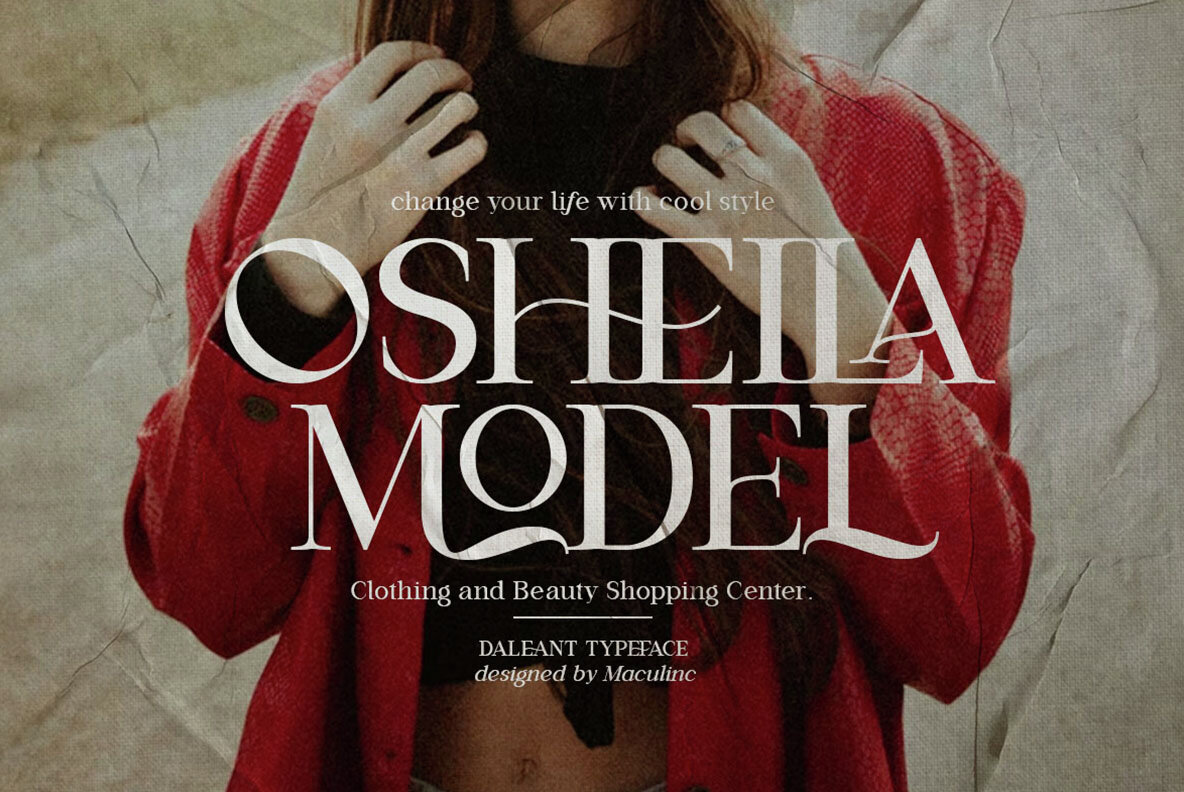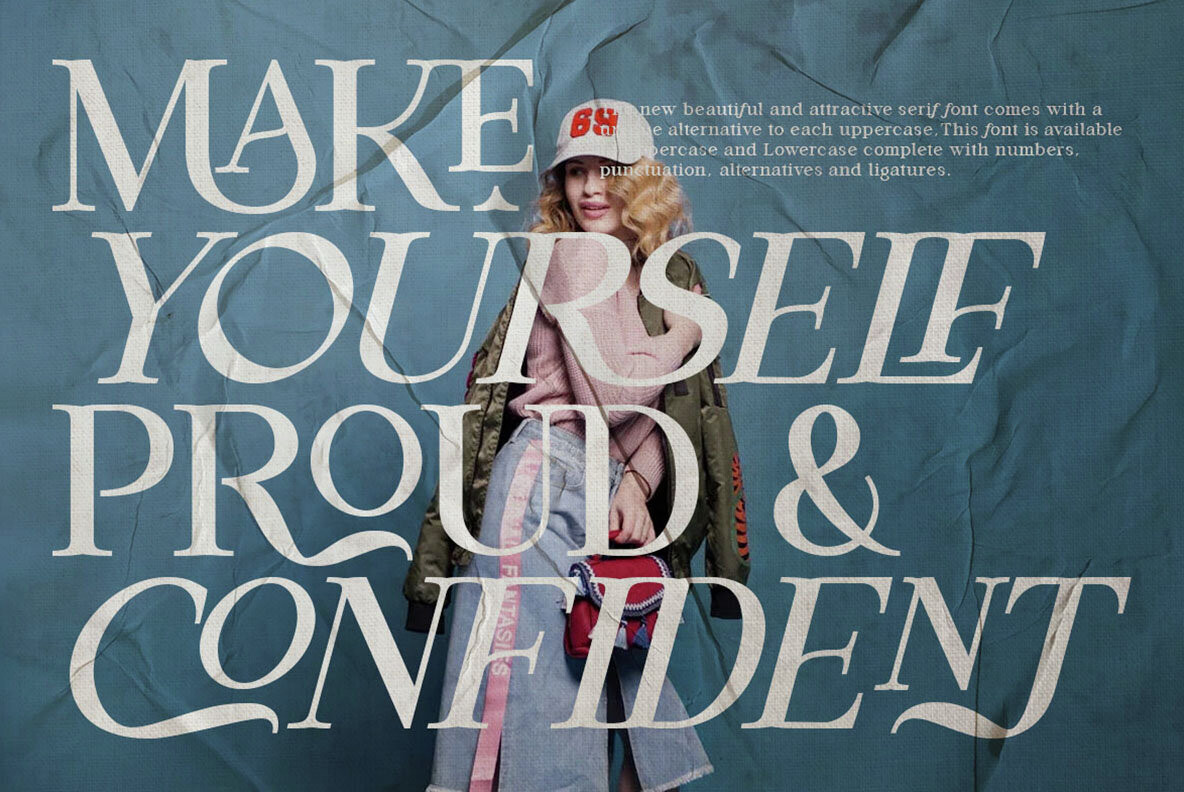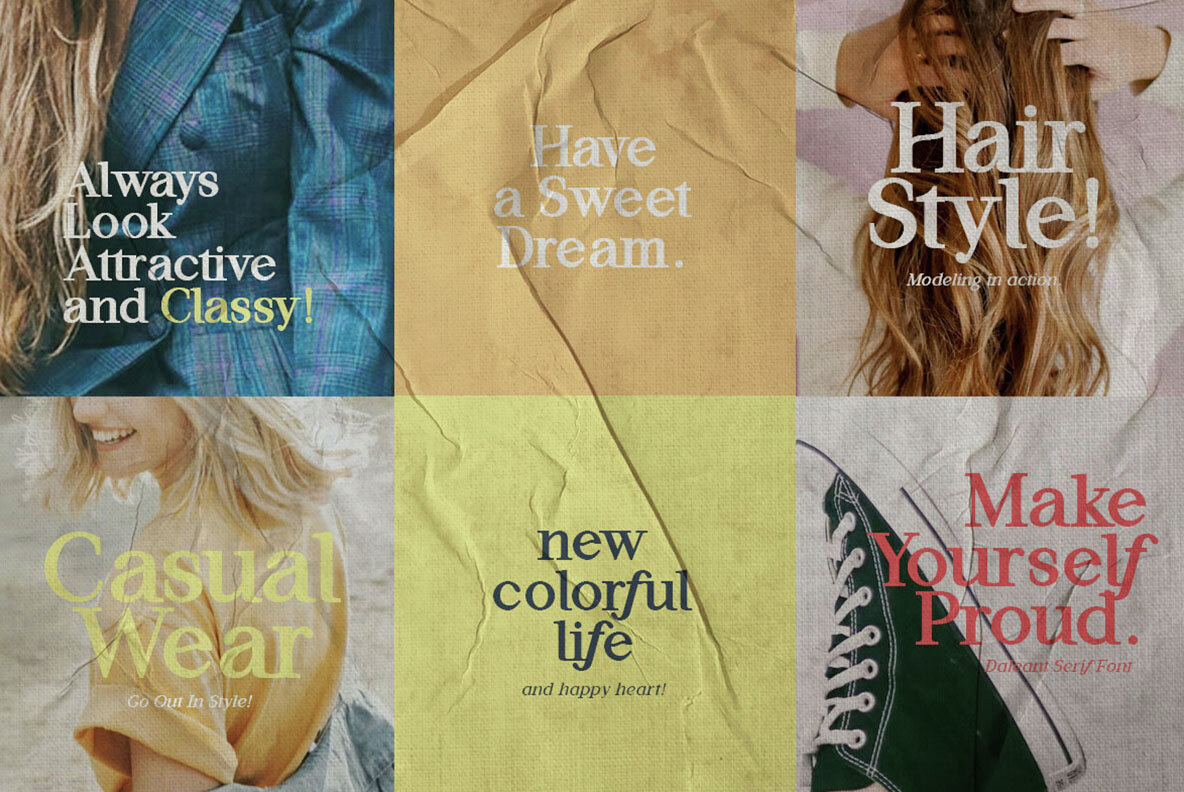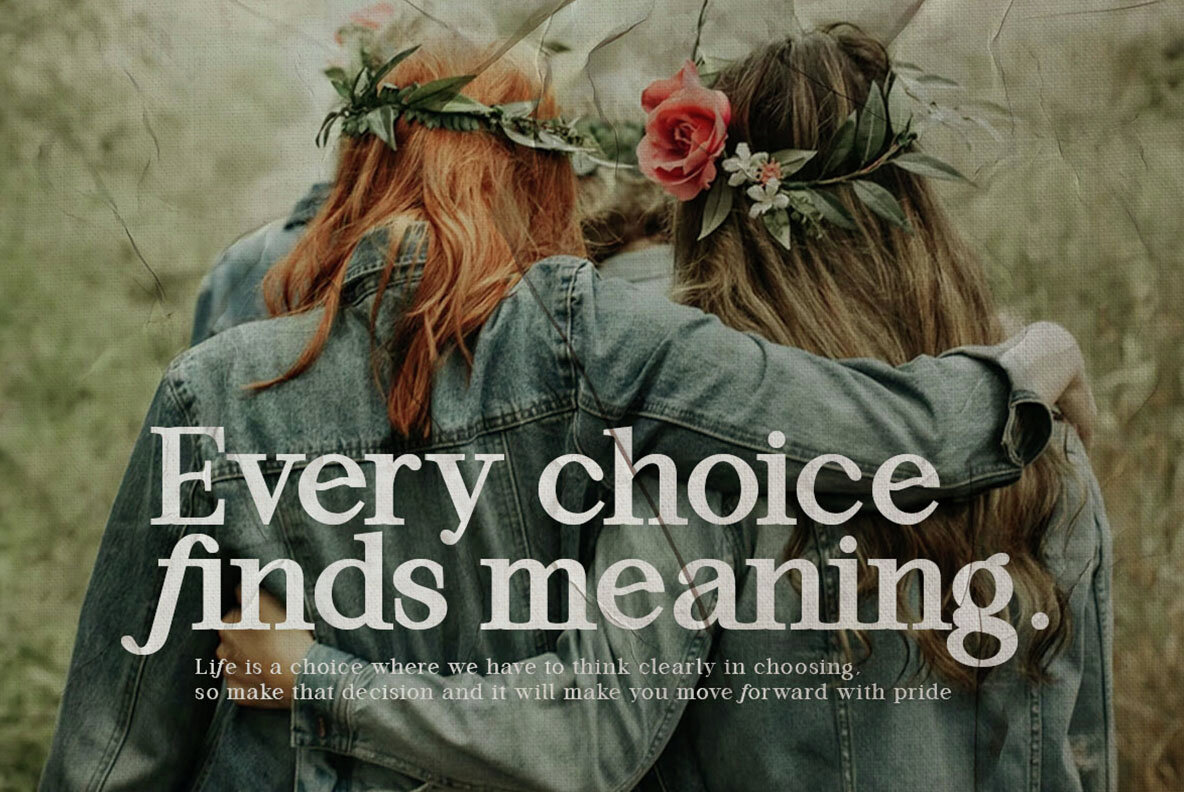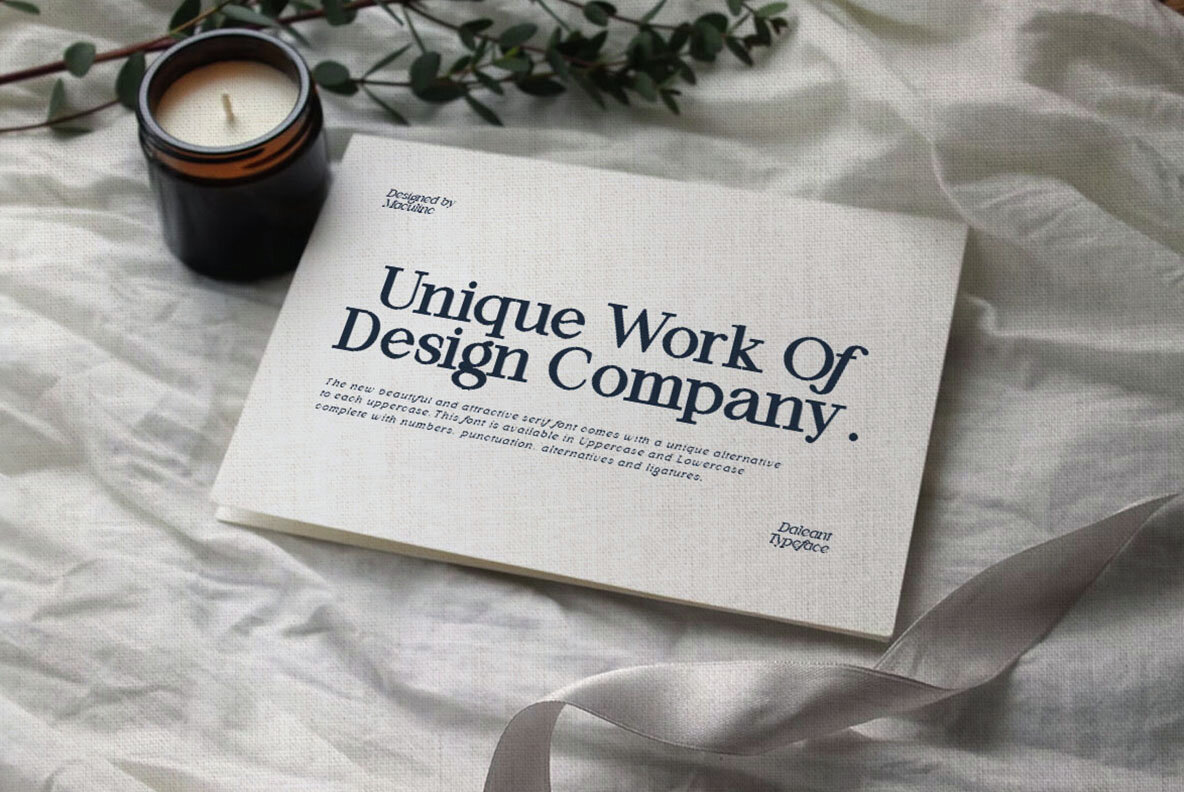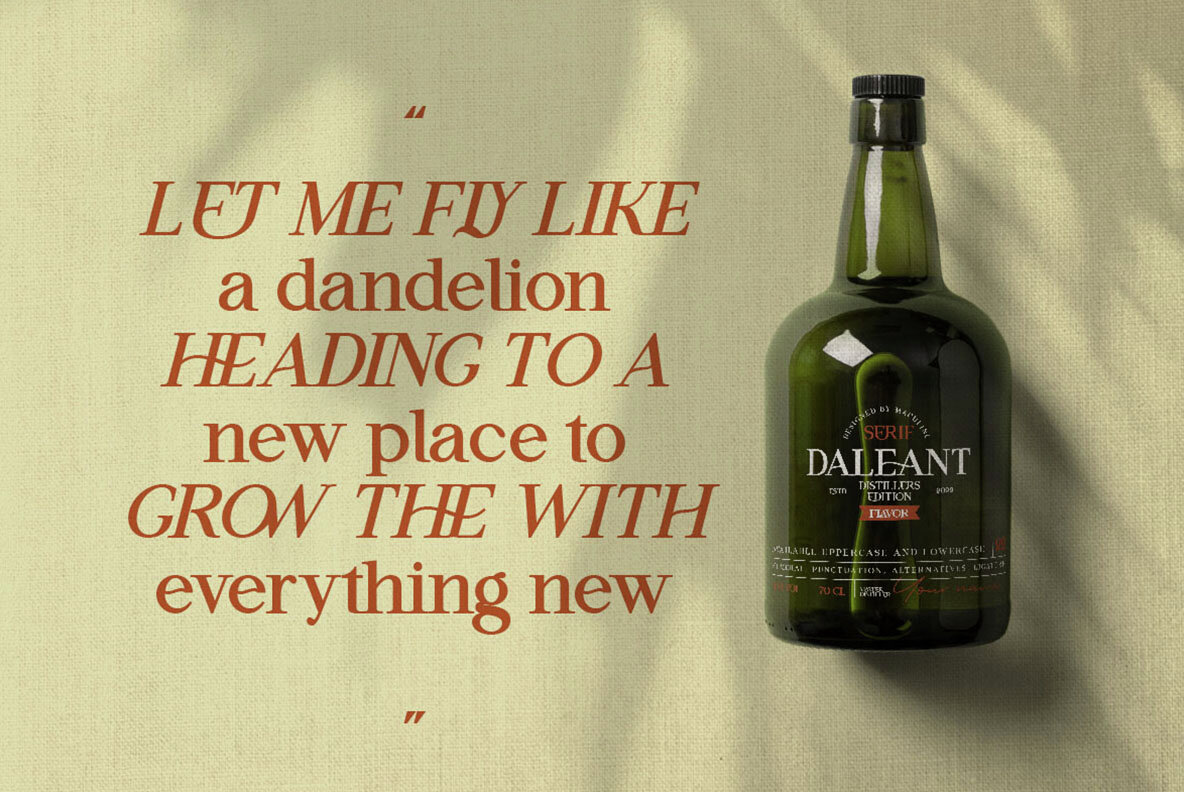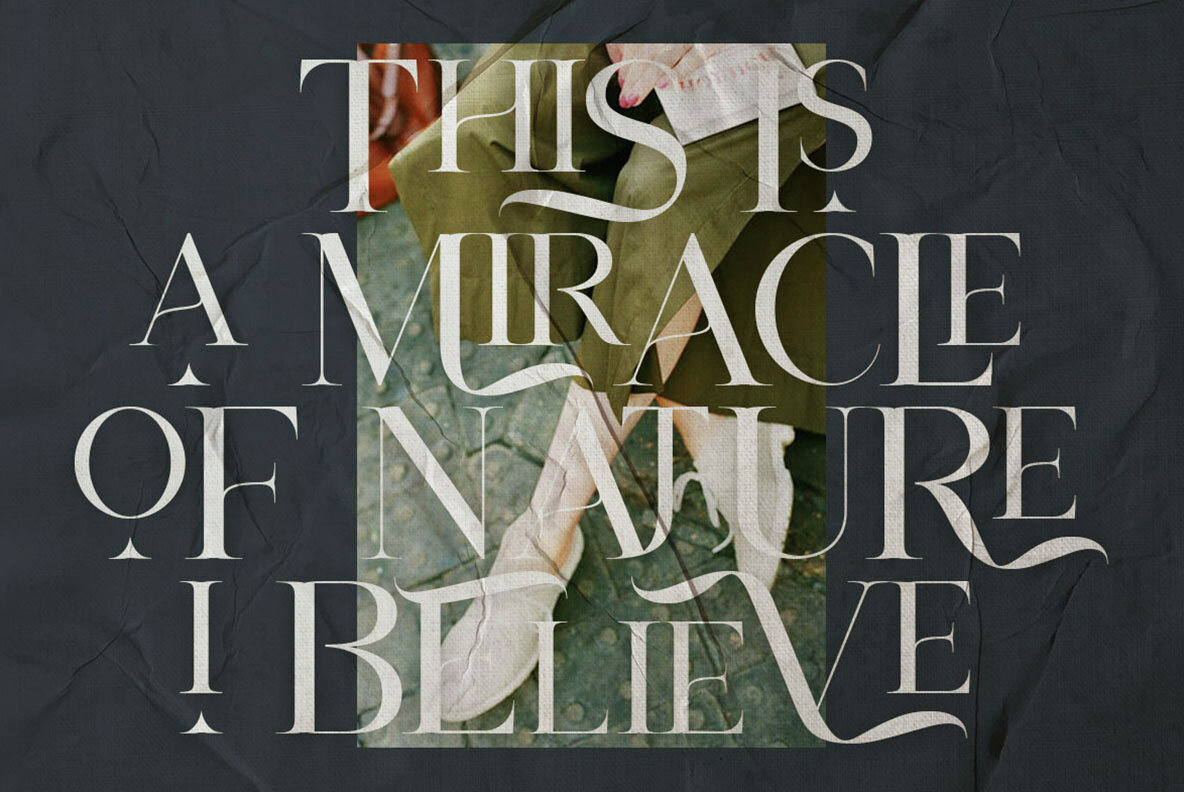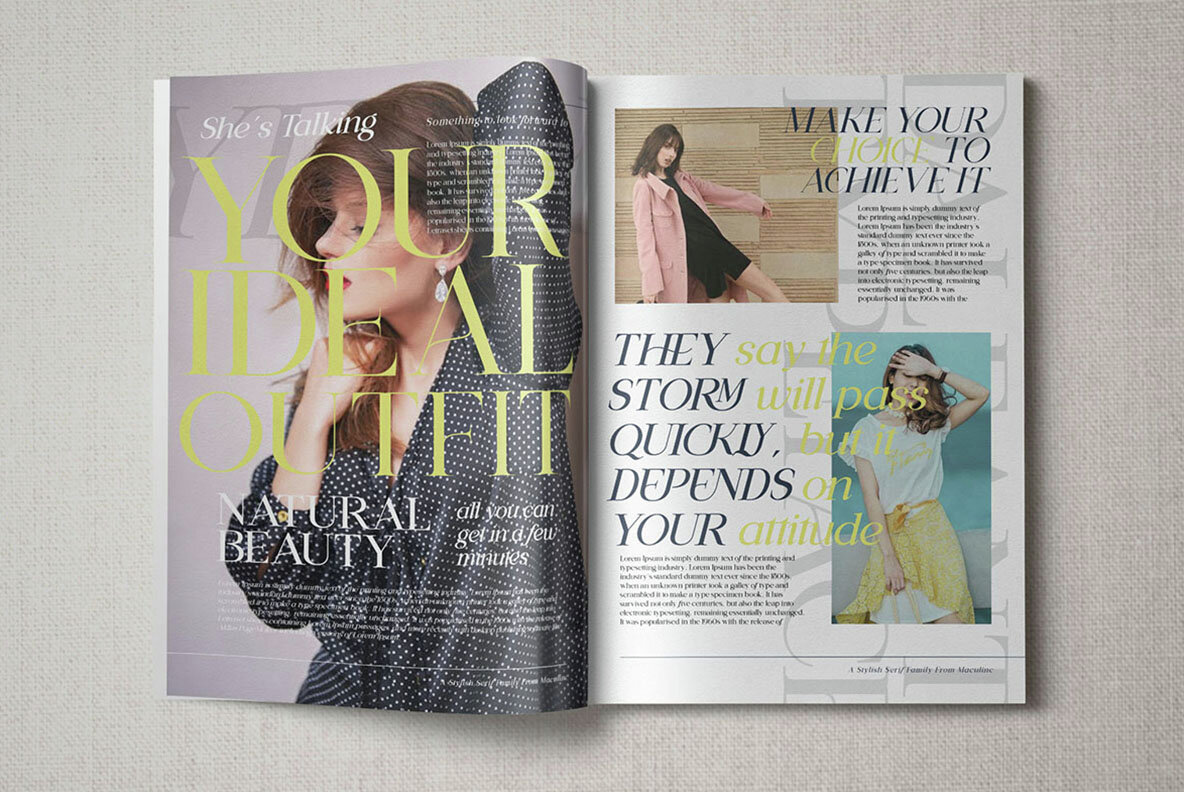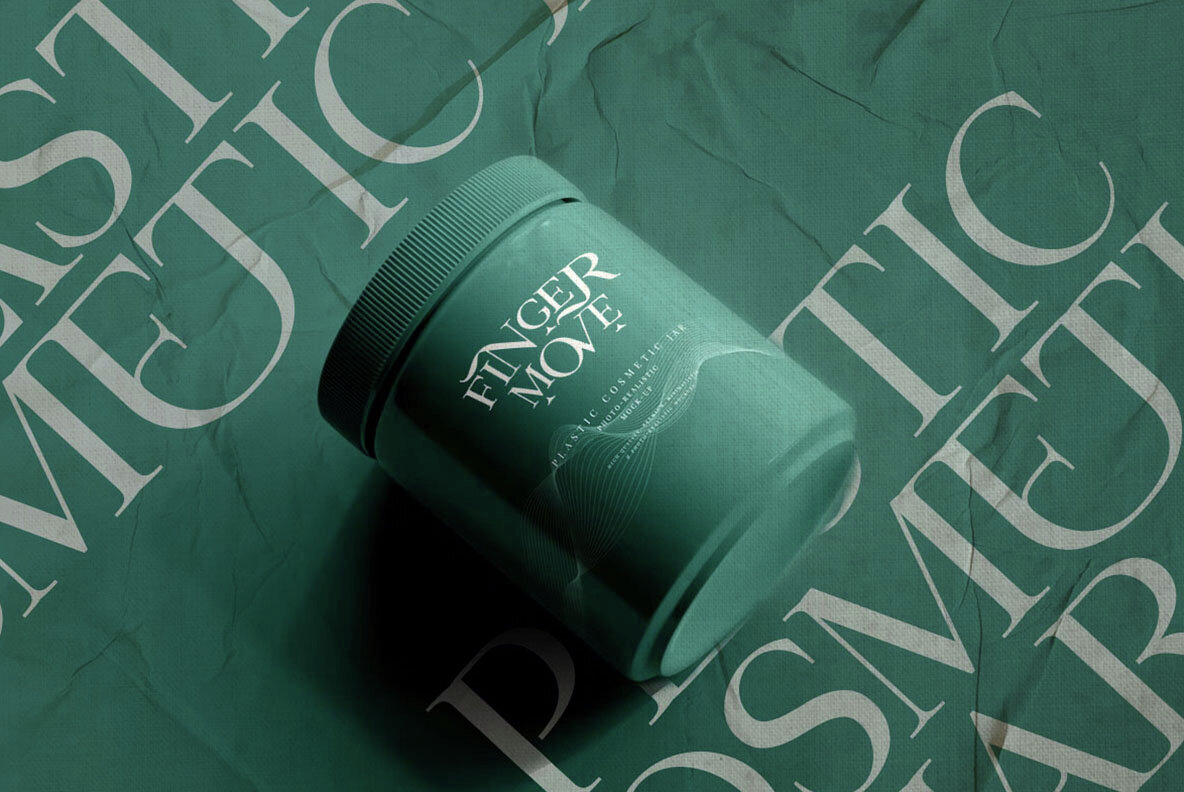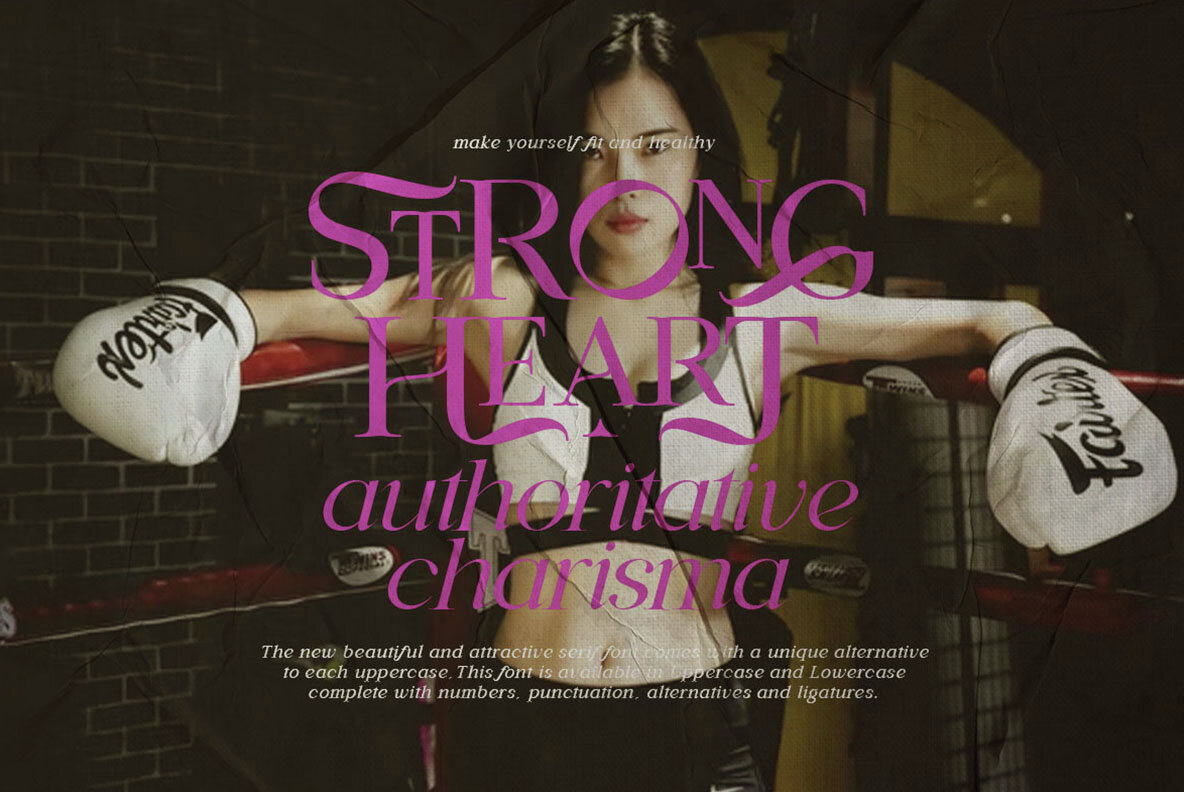
Daleant Font
The new beautiful and attractive Serif Font comes with a unique alternative in each Uppercase, This Font is available in Uppercase and Lowercase Complete with Numbers, Punctuation, Alternate and Ligatures. Alternatives and Ligatures in this font are only available in uppercase letters, Add alternatives to make sentences more unique and interesting. Images used : All photos/images/vectors used in the preview are excluded, for illustration purposes only. Feel free to follow, like and share. thank you very much for checking my store!
Daleant Serif Font is available in the family of Light, Light-Italic, Regular, Italic, Medium, Medium-Italic, Semi Bold, Semi Bold-Italic, Bold, Bold-Italic.
Alternatives and Ligatures in this font are only available in uppercase letters, Add alternatives to make sentences more unique and interesting.